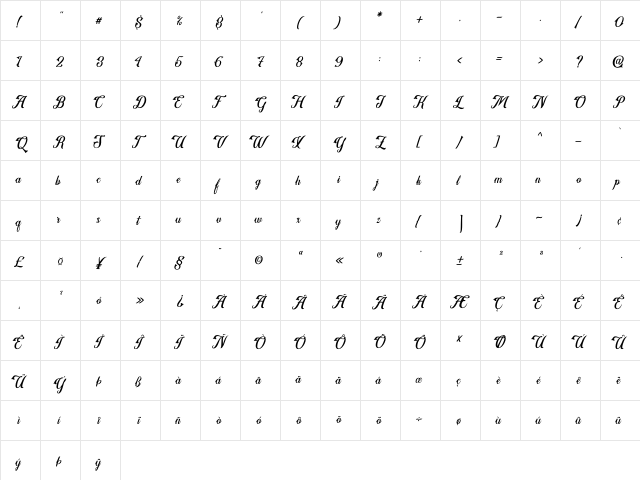
Agressive Rhytmes ROG Regular
Design Context for Agressive Rhytmes ROG Typeface
Agressive Rhytmes ROG takes a measured approach to typography — its balanced proportions and neutral character make it a reliable workhorse for both digital and print work.